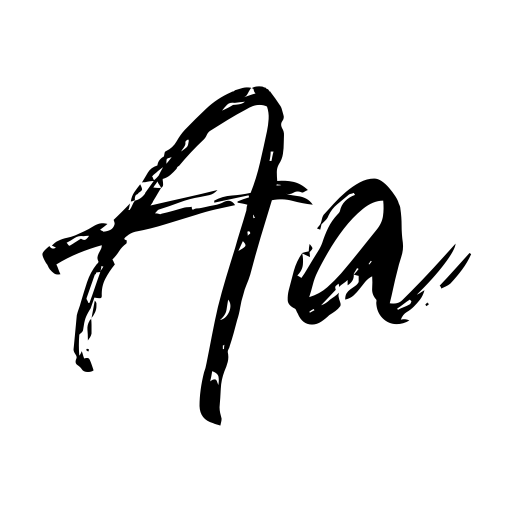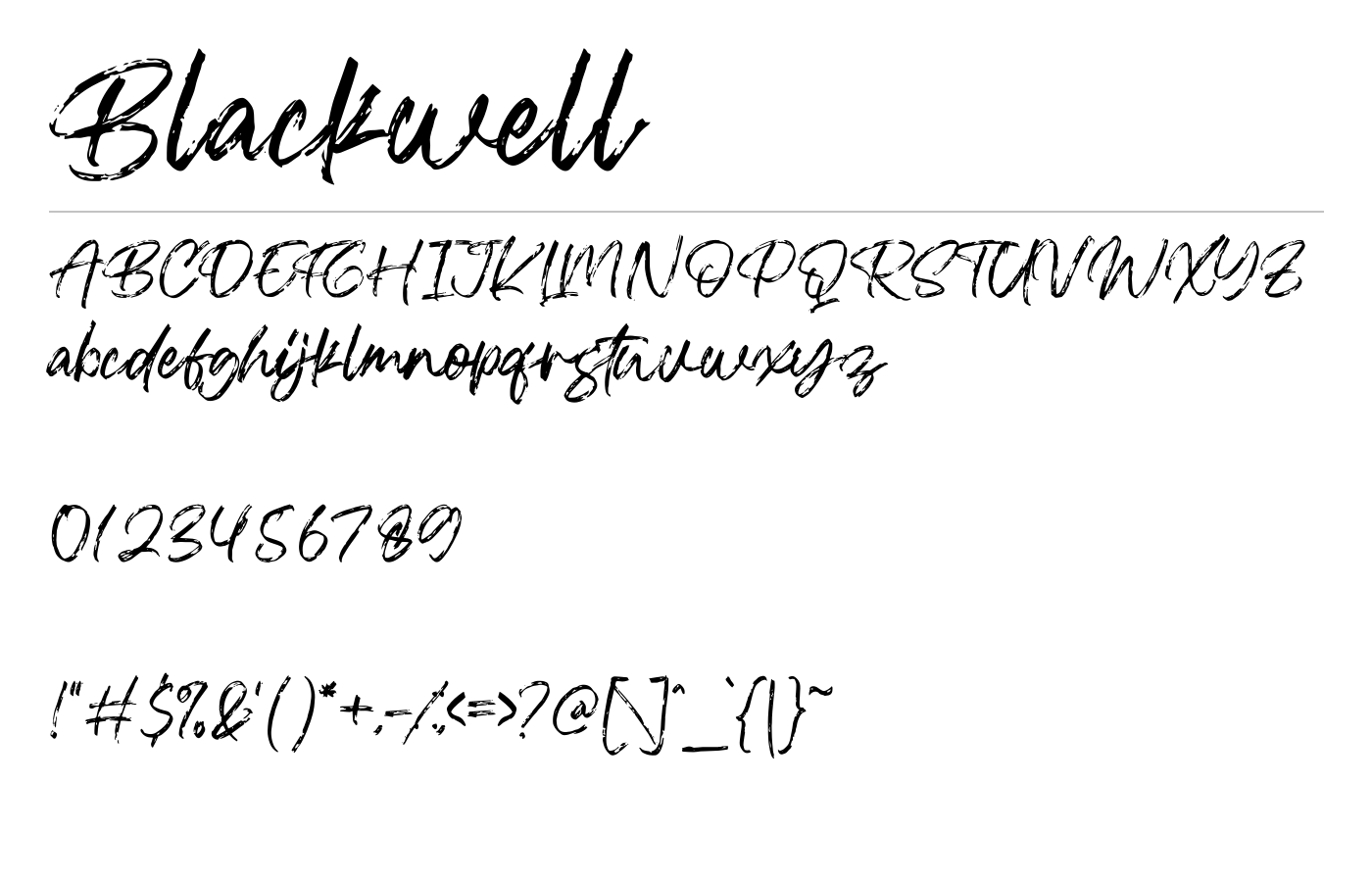
Blackwell is a dynamic handwritten script font with a textured, brushstroke appearance that gives it an energetic and artistic feel. Its irregular, slightly rough edges combined with varied stroke widths create a lively and expressive personality, making it ideal for creative projects, casual branding, and standout headlines where a personal, handcrafted touch is desired. This font works especially well in designs that aim to convey creativity, spontaneity, and individuality.
Blackwell Font
About Blackwell Font